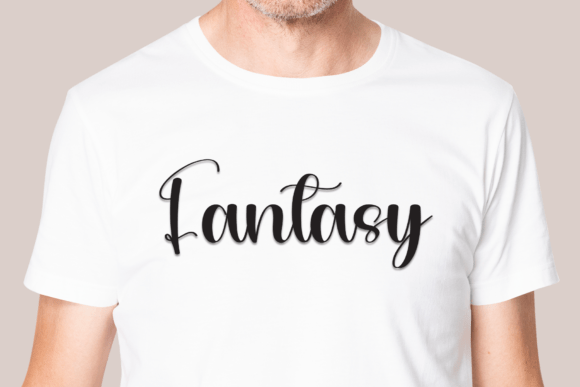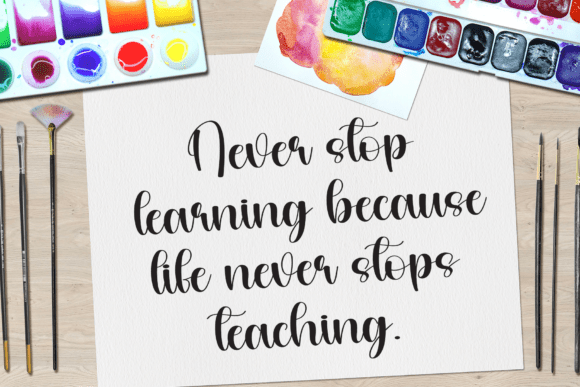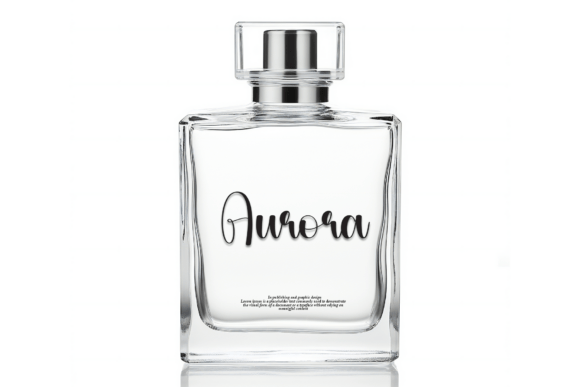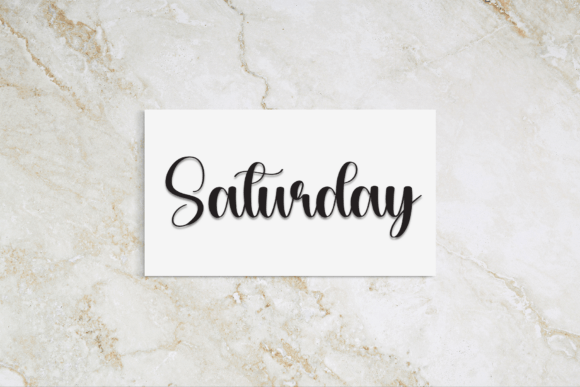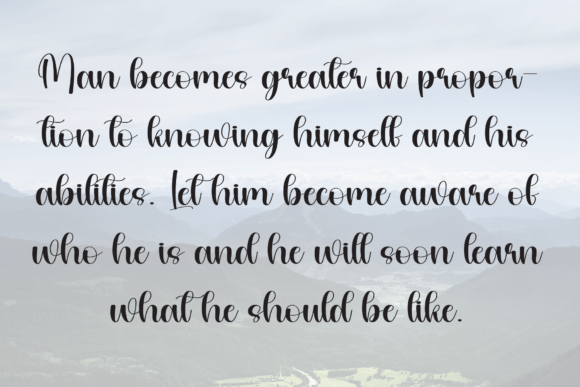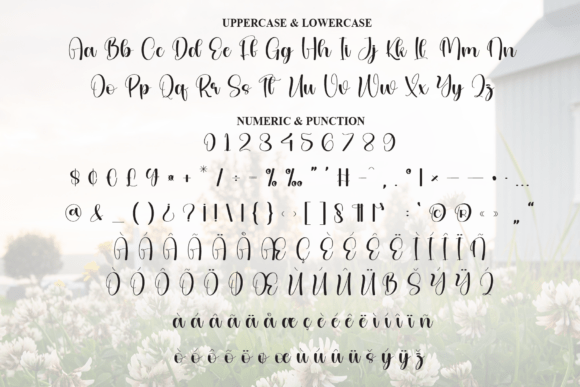
Daisy Farmhouse Font: A Charming Handwritten Font for Rustic Designs
Are you looking for a font that captures the essence of rustic charm and warmth? Look no further than the Daisy Farmhouse Font, a sweet and welcoming handwritten font that’s perfect for farmhouse signs, crafts, and heartfelt quotes. In this article, we’ll explore the features and benefits of this beautiful font, and how it can elevate your design projects.
What is Daisy Farmhouse Font?
Daisy Farmhouse Font is a handwritten font inspired by the rustic charm of farmhouse signs and country crafts. Its flowing curves and natural feel evoke a sense of warmth and coziness, making it perfect for designs that require a personal touch. The font’s unique character and whimsical feel make it stand out from more traditional fonts, adding a touch of personality to any design.
Key Features of Daisy Farmhouse Font
• Sweet and Welcoming: The Daisy Farmhouse Font has a warm and inviting feel, making it perfect for designs that require a personal touch.
• Handwritten with Love: The font’s handwritten style gives it a unique and authentic feel, as if written with love and care.
• Rustic Charm: The font’s rustic charm and natural feel make it perfect for farmhouse signs, crafts, and country-themed designs.
• Flowing Curves: The font’s flowing curves and smooth lines create a beautiful, elegant look that’s perfect for quotes, sayings, and phrases.
• Versatile: The Daisy Farmhouse Font is versatile and can be used for a variety of design projects, from farmhouse signs to crafts, and even digital designs.
Uses for Daisy Farmhouse Font
The Daisy Farmhouse Font is perfect for a variety of design projects, including:
• Farmhouse Signs: The font’s rustic charm and natural feel make it perfect for farmhouse signs, welcome signs, and directional signs.
• Crafts: The font’s whimsical feel and handwritten style make it perfect for craft projects, such as DIY signs, cards, and gift tags.
• Heartfelt Quotes: The font’s elegant look and flowing curves make it perfect for quotes, sayings, and phrases that require a personal touch.
• Digital Designs: The font’s versatility makes it perfect for digital designs, such as social media graphics, blog posts, and website headers.
Tips for Using Daisy Farmhouse Font
Here are some tips for using the Daisy Farmhouse Font in your design projects:
• Pair with Other Fonts: The Daisy Farmhouse Font pairs well with other fonts, such as serif and sans-serif fonts, to create a unique and interesting look.
• Use for Headlines and Titles: The font’s bold and playful feel make it perfect for headlines and titles that require a personal touch.
• Add a Personal Touch: The font’s handwritten style and whimsical feel make it perfect for adding a personal touch to your designs.
The Daisy Farmhouse Font is a beautiful and charming handwritten font that’s perfect for designers and crafters looking for a rustic and welcoming feel. Its unique character, flowing curves, and natural feel make it perfect for farmhouse signs, crafts, and heartfelt quotes. With its versatility and whimsical feel, the Daisy Farmhouse Font is sure to become a favorite in your design toolkit.